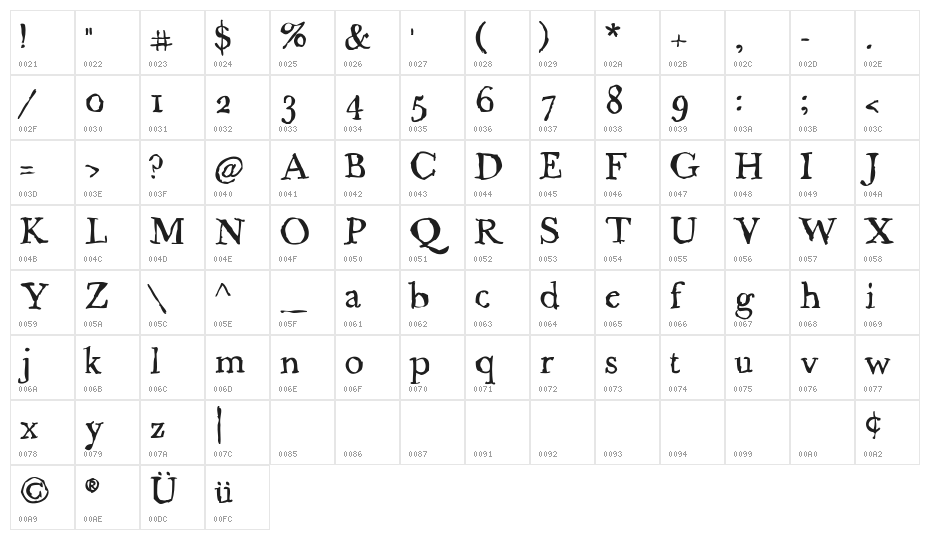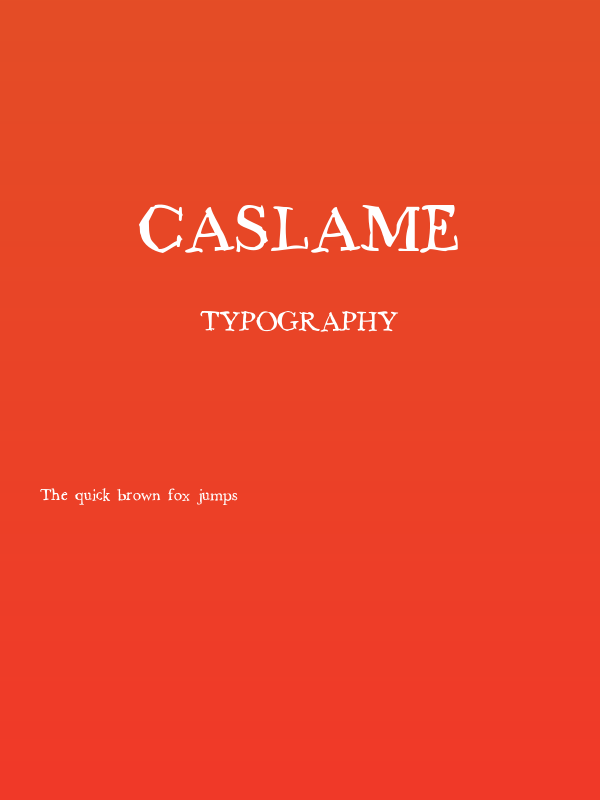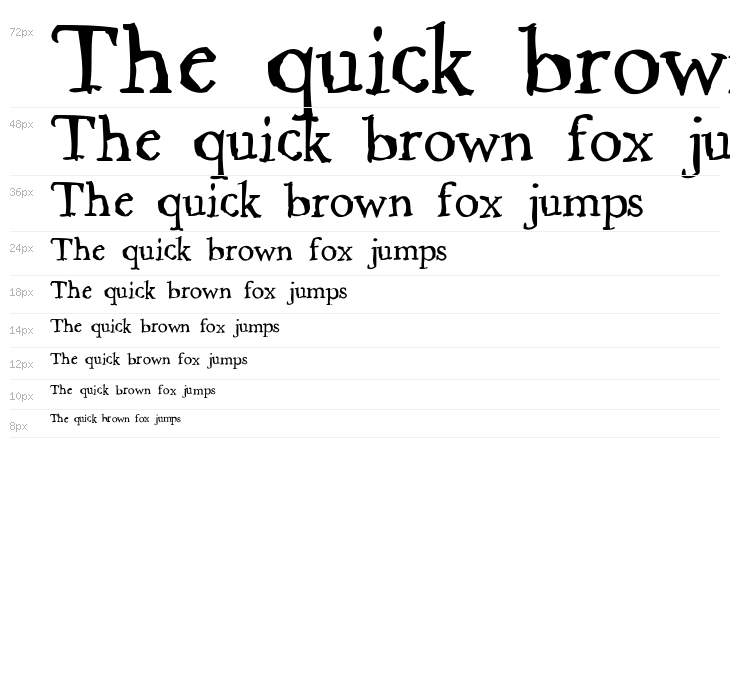
Caslame Font
Caslame Description
This font exudes a rustic and hand-crafted charm, characterized by its uneven strokes and slightly irregular shapes that give it a distinctly organic feel. The uppercase letters are bold and assertive, while the lowercase letters maintain a playful and whimsical quality. The numerals are consistent with the overall style, featuring the same hand-drawn aesthetic. Special characters are creatively designed, adding to the font's unique personality. This font is perfect for projects that require a touch of authenticity and individuality, making it ideal for artistic and creative endeavors.
| Overall Style | Rustic, Artistic |
| Proposed Projects | Ideal for artistic projects, handmade crafts, rustic-themed designs, and creative branding. |